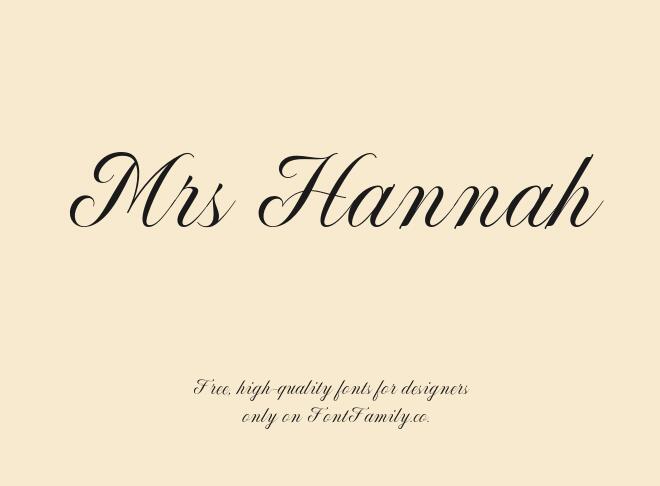
Mrs Hannah Font
Introducing Mrs Hannah Font, a playful yet elegant script font that brings a sense of sophistication and style to any design project. With its handwritten charm, Mrs Hannah is perfect for invitations, greeting cards, and branding materials. It stands out with its unique calligraphic touch that captures the essence of freehand writing. This font's playful curves make it an excellent choice for children's book covers or event posters. Being similar to fonts like Brush Script and Pacifico, it adds a more personalized and human touch to the design. Despite the similarities, Mrs Hannah Font holds its own with its unique character and style. The font is free for personal use, making it a great choice for designers seeking to add a touch of elegance and playfulness to their projects.